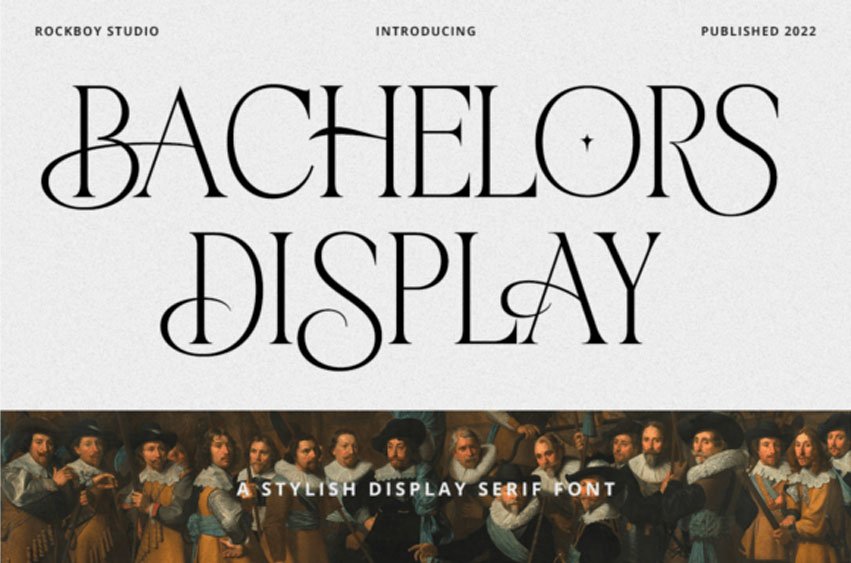
Bachelors Display Font is a display serif font with a romantic vibe.
This classic serif font comes with swashy alternates so you can create high-impact, romantic designs for a wide range of display uses!
Bachelors Display Font is a display serif font with a romantic vibe.
This classic serif font comes with swashy alternates so you can create high-impact, romantic designs for a wide range of display uses!